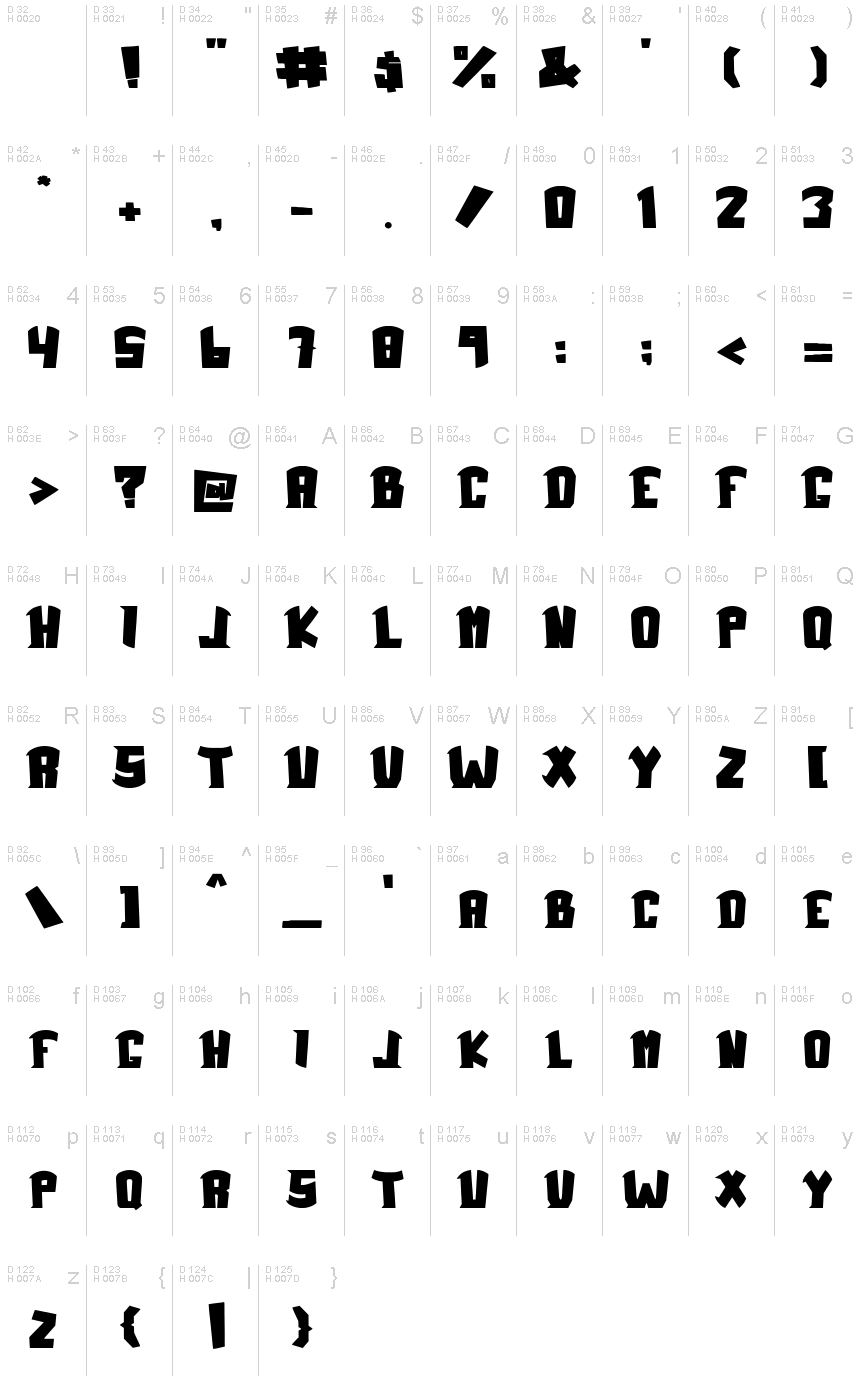
Vampire World
Evoking the eerie essence of the supernatural, the Vampire World font exudes a captivating blend of Gothic charm and unearthly elegance. Crafted by the skilled designer Asep Rendi, this bold typographic creation features sharp, angular serifs that conjure visions of dark castles and mysterious shadows. The letterforms possess a haunting, undulating rhythm, fostering an atmosphere of mystique and intrigue that lingers long after the gaze has wandered.
This versatile font lends itself seamlessly to a wide range of Halloween-themed designs, from horror movie posters to spooky party invitations. Its commanding presence commands attention, making it an ideal choice for bold headlines, dramatic album covers, and eye-catching branding. Whether you're crafting a chilling narrative or unleashing your darkest creative visions, the Vampire World font is a masterful tool that will elevate your designs to the realms of the extraordinary.